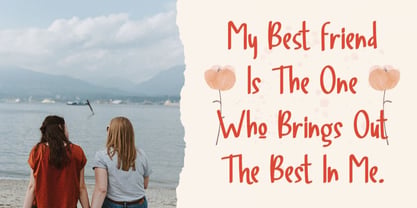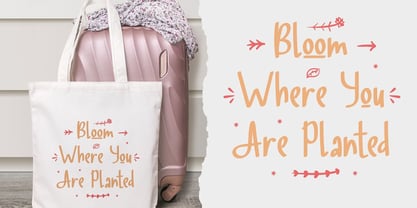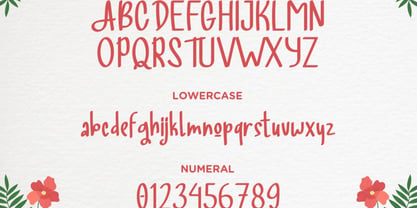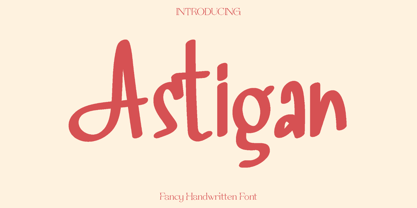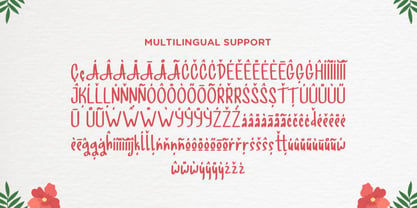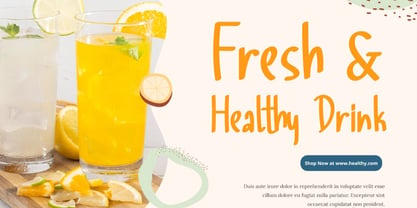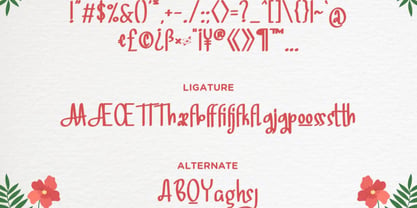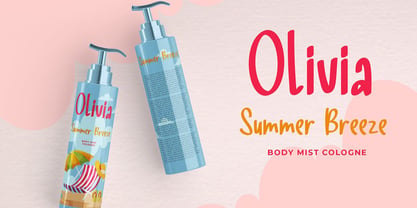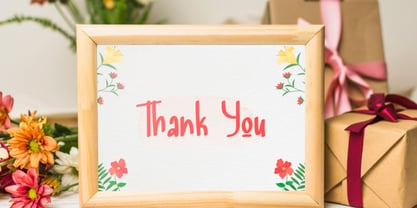
Astigan
The Astigan Font Family was designed by Olivia Love and published by Only Fonts. Astigan contains 1 styles. More about this family
Astigan – Fancy Handwritten Font Astigan is a fancy handwritten font designed to capture the charm and warmth of natural handwriting. With meticulous attention to detail, it adds an authentic, personal touch to any project while maintaining a polished and stylish appearance. The smooth strokes and expressive curves give Astigan a lively personality, making every word feel friendly, creative, and full of character. Inspired by modern calligraphy and casual lettering, Astigan excels in designs that require a human and approachable feel. It is perfect for branding, logos, social media graphics, packaging, invitations, quotes, and creative editorial layouts. Whether set against textured backgrounds or used as a bold headline, Astigan ensures a strong visual presence and excellent readability. Astigan balances elegance and playfulness, making it versatile for both professional and artistic applications. Designers can leverage its unique style to create eye-catching compositions that engage viewers. Its handcrafted aesthetic adds depth and emotion to your typography, helping your message stand out with personality and charm. Astigan Fancy Handwritten Font Features: • Uppercase and lowercase characters • Symbols, punctuation, and numerals • Ligatures and alternate characters • Multilingual support